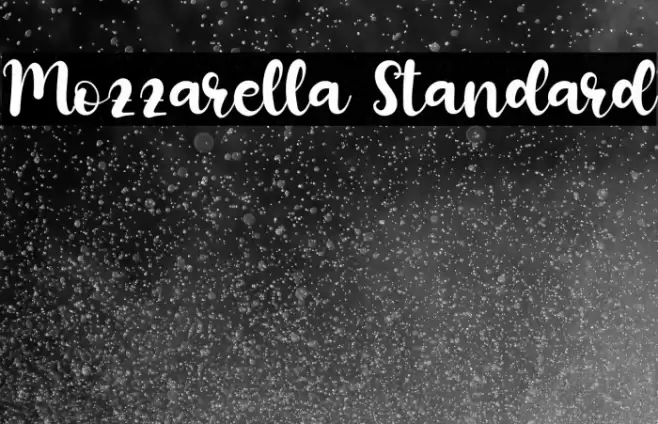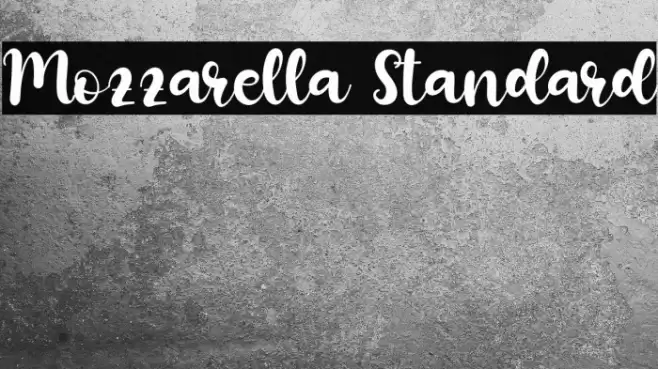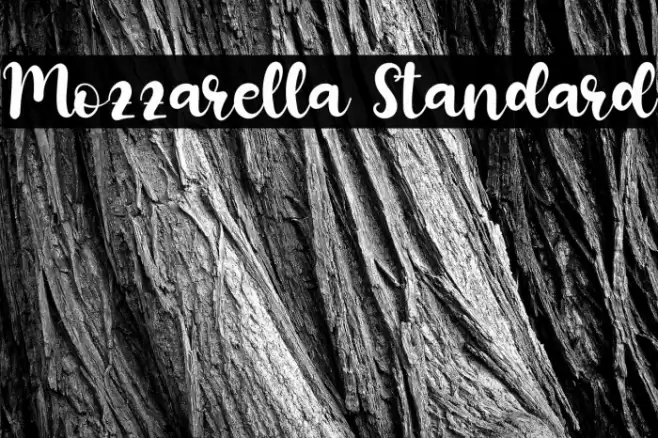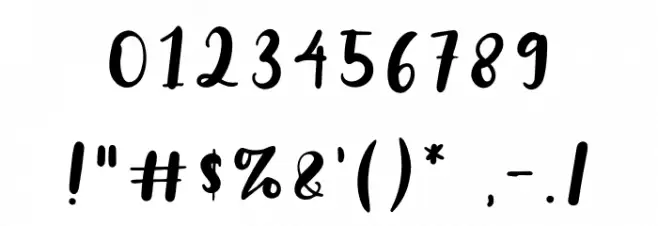
Mozzarella Standard Font
Mozzarella Standard Description
This font features a playful and artistic script style, characterized by its flowing, cursive letterforms. The uppercase letters are bold and expressive, with a slight slant that adds a dynamic feel. The lowercase letters maintain a consistent style, with smooth curves and a handwritten appearance. The numbers are clear and legible, matching the overall aesthetic. Special characters are creatively integrated, enhancing the font's versatility. This font exudes a sense of creativity and elegance, making it suitable for various design applications.
A playful and artistic script font with bold, cursive letterforms from Uncategorized fonts.
- Proposed Projects: Ideal for wedding invitations, greeting cards, branding projects, and artistic posters.
- Use Case: Logos, Invitations, Artistic designs